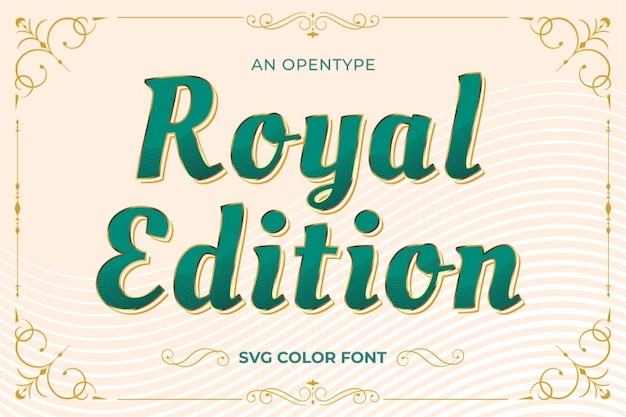
"Royal Edition" is an exquisite font that embodies the grandeur of royal Victorian design. Its intricate blackletter style features ornate details and flowing forms, reminiscent of antique manuscripts. Perfect for high-end branding, invitations, or themed events, "Royal Edition" adds a touch of elegance and historical sophistication, making it ideal for projects that seek to evoke a sense of timeless luxury.